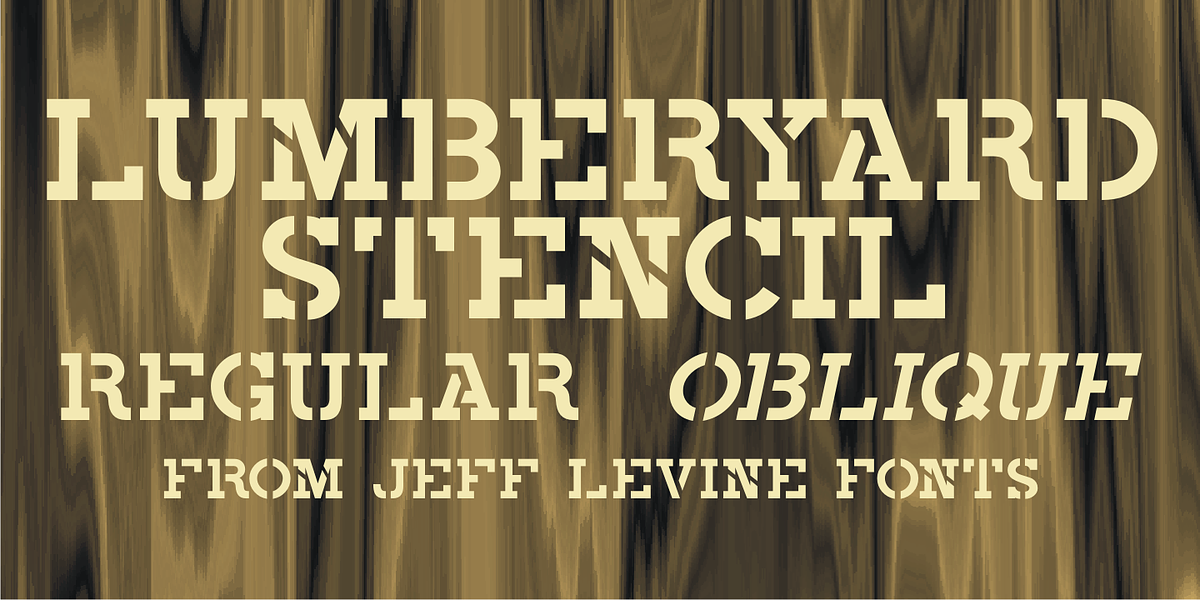
Lumberyard Stencil JNL
Lumberyard Stencil JNL was inspired by the image of an antique brass stencil that was probably used for marking various wood products by a lumber company.
It's available in both regular and oblique versions.